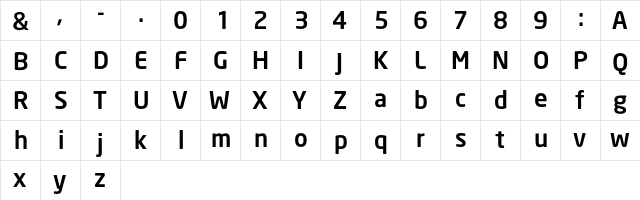
NeoSans Medium Font Preview
NeoSans Medium
Design Context for NeoSans Typeface
NeoSans offers clean, dependable letterforms without strong stylistic allegiance, making it a practical choice for designers who need flexibility.